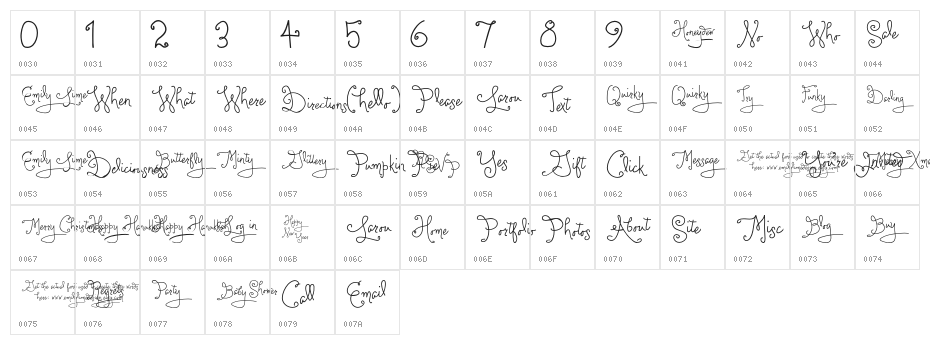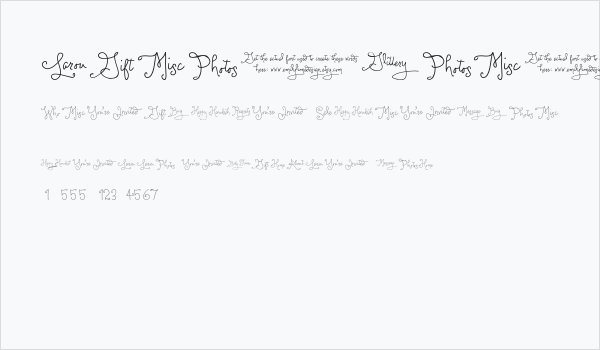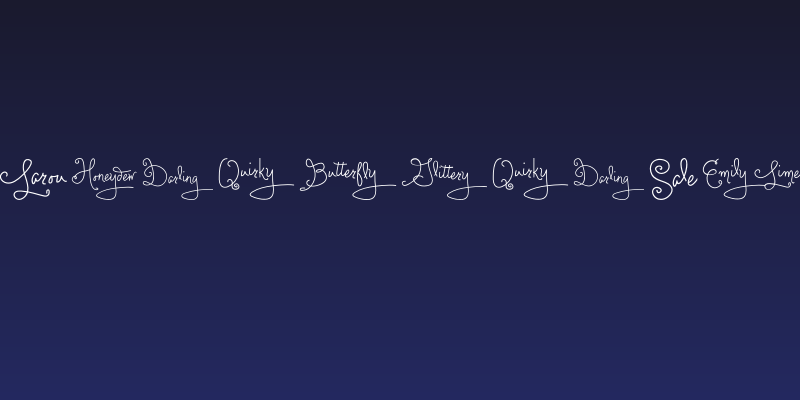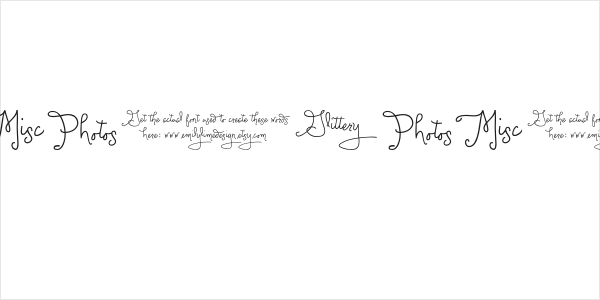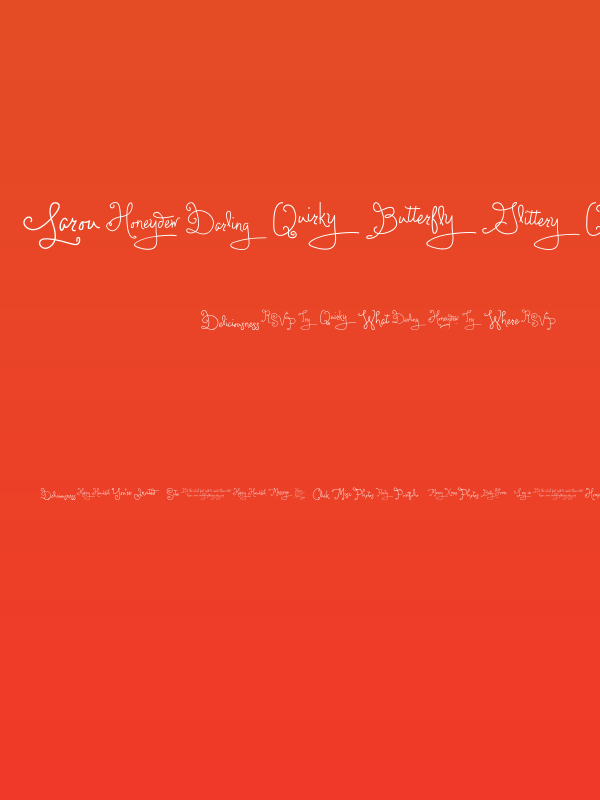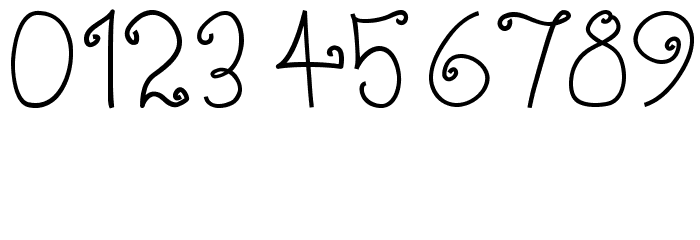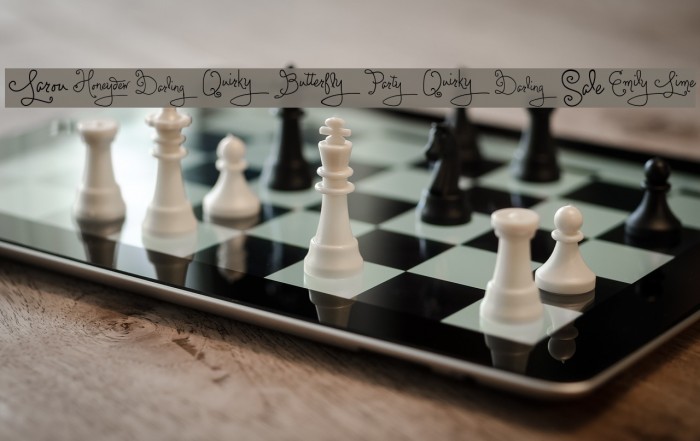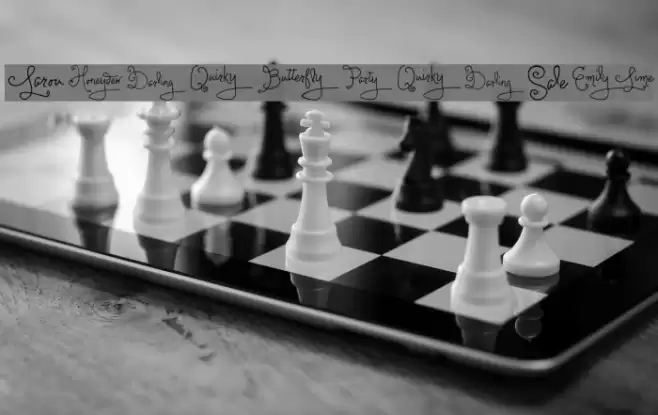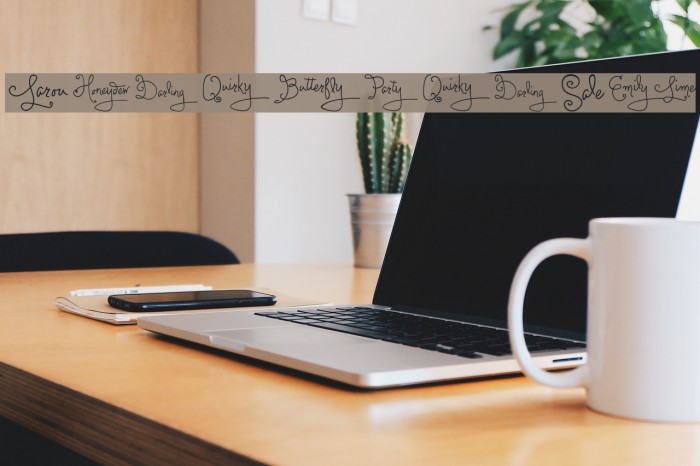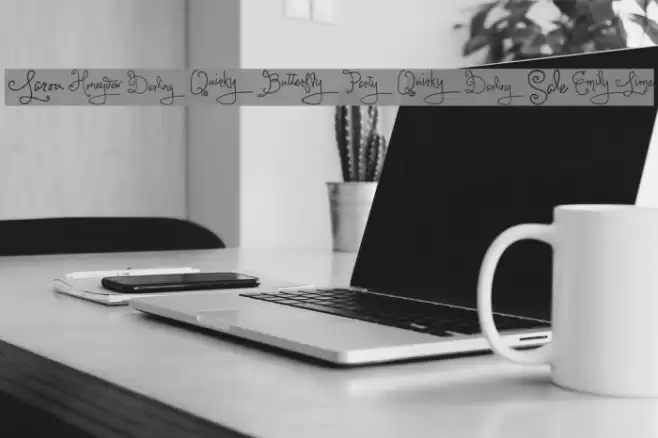
LarouWords Font
LarouWords Description
This font is a whimsical and decorative script with a playful and elegant flair. The letters are intricately designed with flourishes and swirls, giving it a hand-drawn, artistic feel. The uppercase letters are particularly ornate, featuring elaborate loops and curves that add a sense of sophistication and charm. The lowercase letters maintain a consistent style, complementing the uppercase with their own subtle embellishments. The numerals are bold and distinct, with unique curls that maintain the font's overall playful aesthetic. This font is perfect for projects that require a touch of elegance and creativity, such as invitations, greeting cards, or branding materials.
| Use Case | Logos, Invitations, Artistic projects |
| Proposed Projects | Ideal for wedding invitations, greeting cards, branding, and artistic projects. |